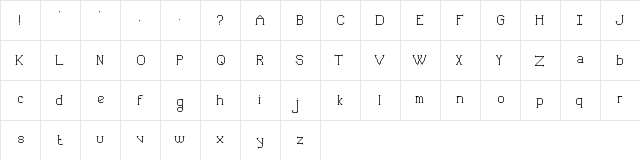
Zombuman Regular
| Designer | walruspoker |
Design Context for Zombuman Typeface
Zombuman offers clean, dependable letterforms without strong stylistic allegiance, making it a practical choice for designers who need flexibility.